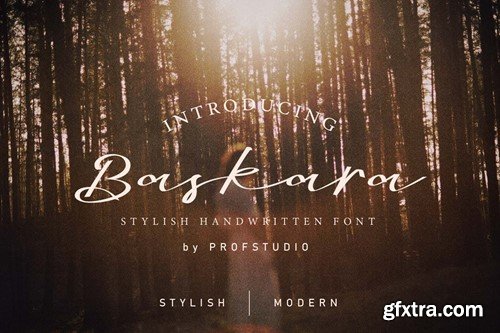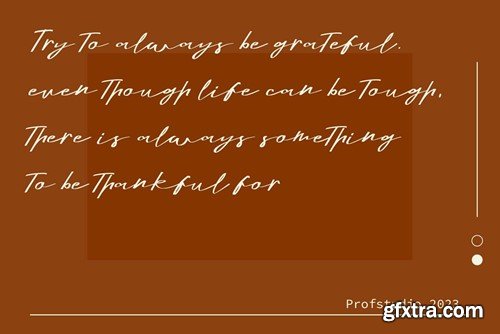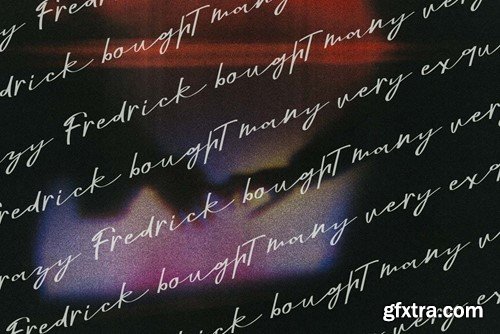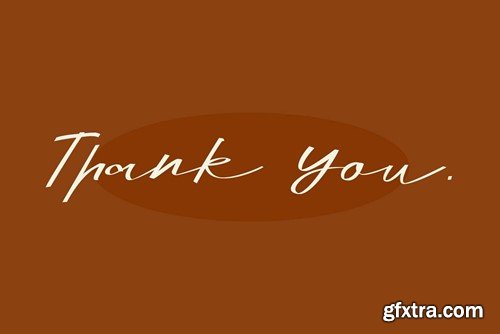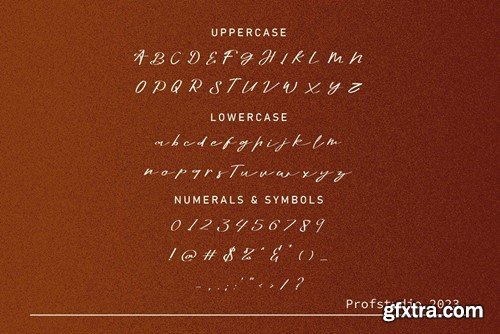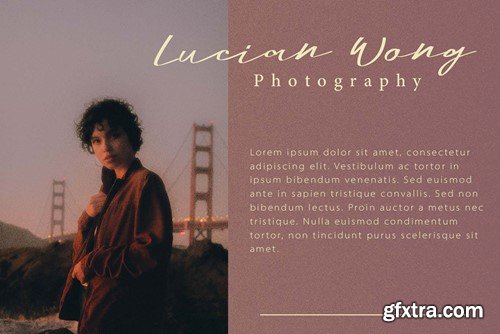
巴斯卡拉 - 炫丽手写字体 3MHZY8J
Baskara - Stylish Handwritten Font
**Hi Ladies and Gentleman ! Proudly present best signature font “Baskara” for you business. Baskara - stylish Script which can be interpreted professional. we keep this font looks elegant, premium, modern, readable, stylish, catchy and easy to use. Baskara - is the great choice for watermark on photography, branding, wedding event, signature or signature logo design, quotes, album cover, magazine, business card and many other design project. Baskara here to make your work to high level!!! Features: Standar character A-Z and a-z Numberial and Functional File include: Baskara Script OTF Baskara Script TTF